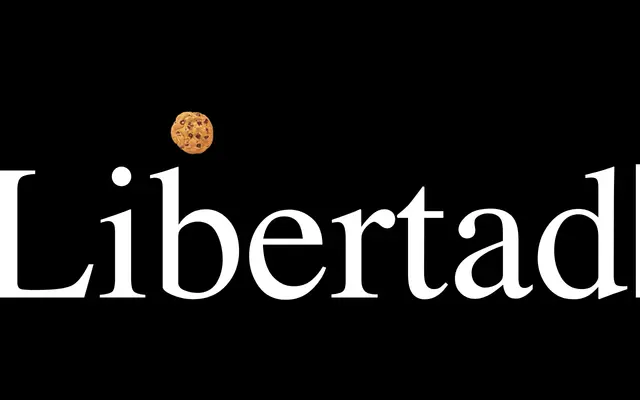
RST Libertad
A grotesque sans from Reset Type Studio with variable size and weight axes.
RST Libertad is a sans-serif from Reset Type Studio offering at minimum variable weight and size controls. The page content is sparse, suggesting a streamlined release focused on flexibility rather than a large static family. Further detail on the full weight range and language support is not available from the provided content.
The name and foundry context suggest a Latin-influenced grotesque sans-serif; insufficient page content to determine a more specific subcategory with confidence.